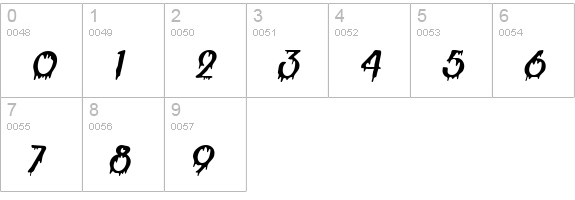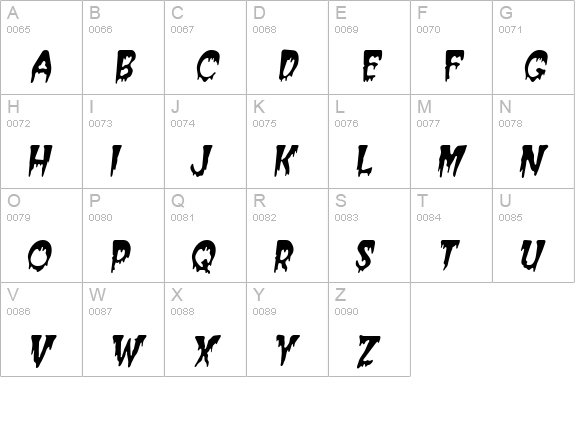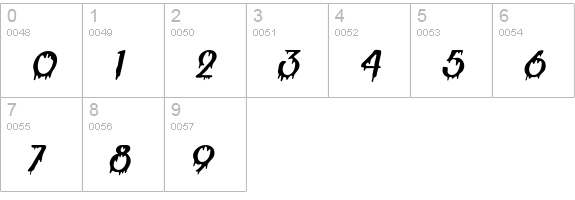
CreepyCondensed Italic Font Details
CreepyCondensed Italic is a distinctive, italic variant in the CreepyCondensed typeface family \xE2\x80\x94 well suited to design and typography projects.
Introducing CreepyCondensed Italic font, a chilling and unsettling typeface that will send shivers down your spine. With its eerie and mysterious appearance, this font is perfect for Halloween-themed designs, horror movie posters, and anything that requires a touch of the macabre. The twisted and distorted letterforms of CreepyCondensed Italic create a sense of unease and foreboding, making it ideal for adding a spooky vibe to your projects. Whether you're working on a haunted house flyer or a ghostly book cover, this font will set the perfect mood. Best of all, CreepyCondensed Italic is free to download at FontsMarket.com. So don't wait, grab this bone-chilling font today and add a touch of horror to your designs!